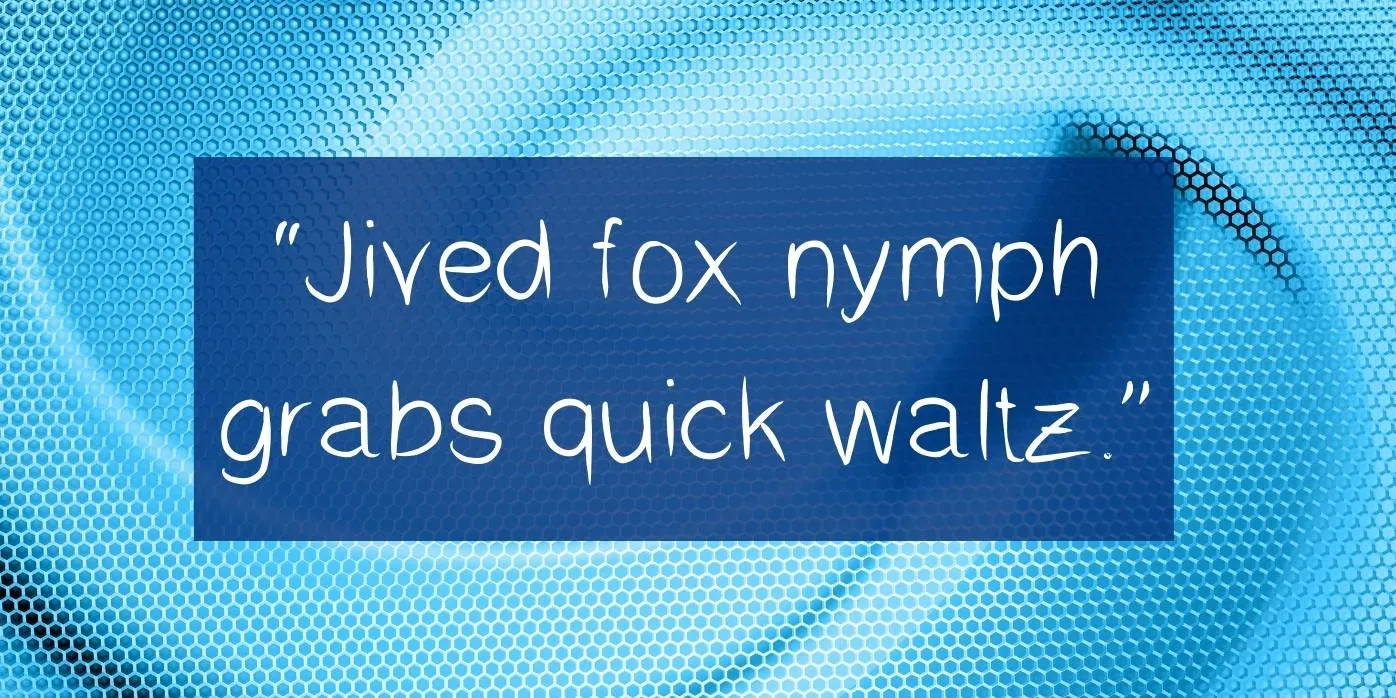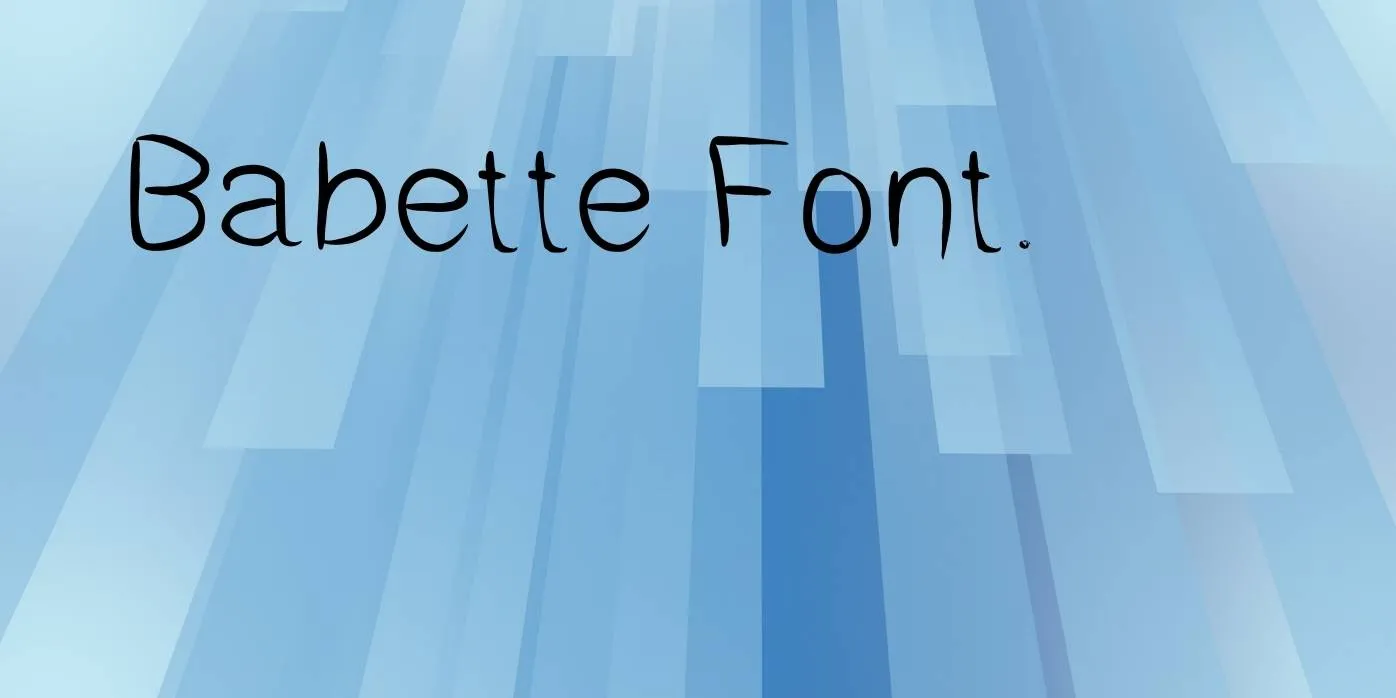
Babette Font
Babette Font was developed by very famous manufacturer Jocelyne Clemenson. It belongs to the Script typeface. It was first released in 1970 during the same time as other famous fonts like Mistral, Lydiard, and Sanvito. This cozy font is perfect for designing newspapers, magazines, advertisements, postcards, etc.
Because its design rules are simple and easy to understand by beginners. This font usually has two weights light and bold. This classy font is suitable for many applications, such as designing a logo. It has two different styles: Babette and light.
Its styles make it unique. This font was published by the Galam Group in 2010 for digital use. However, this font was best than the digital version. Allura Font is similar to this font.
It is very famous by many designers but still used by everyone. This font is very beautiful with its awesome design. This cute typeface is best for Canva and Adobe Illustrator Usage Due to its impressive look, this font is used for designing logos, frames, invitation cards, and posters. In the digital world, this font is loved by many designers.
It has a beautiful appearance that makes it perfect to design a logo. This astonishing Font was created with simplicity so anyone can use it easily. This font was released multiple times and is best for creating a lot of designs like banners, Emblems, Book covers, and so on. You can create many designs like invitations, magazine covers, letterheads, etc.
The best thing about this font is that it can be used according to your needs. You can also make a combination with Braxton Font. This font is not only one of the best fonts for designing advertisements, but also one of the most widely used typography fonts in print media. With this Font you get two types one is light and the other is bold that giving an attractive look to your designs.